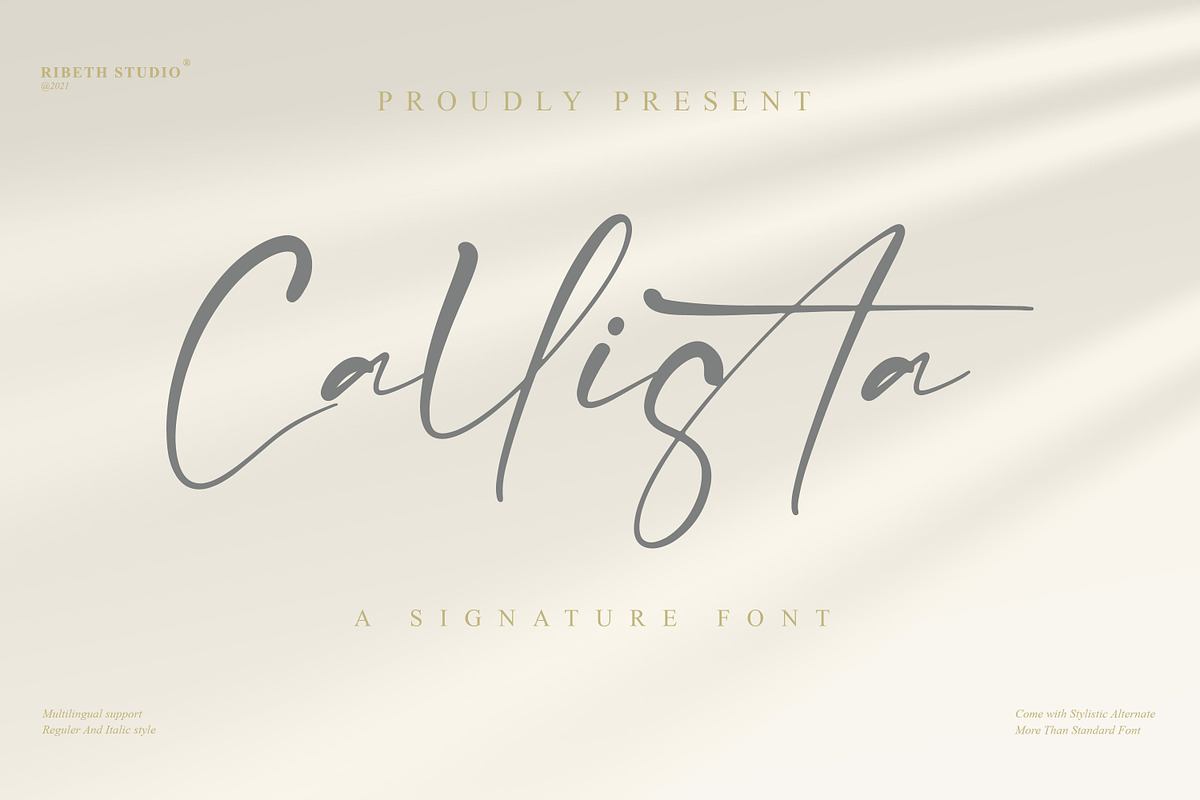
This sophisticated font is perfect for luxury brand signatures, personal logo design, wedding stationery, high-end business cards, elegant letterheads, boutique branding, premium packaging design, and exclusive event invitations. Its graceful character makes it ideal for projects requiring authentic signature elegance and personalized sophistication.
Callista Signature Font is exciting because it captures the fluid beauty and personal intimacy of natural signature writing with carefully crafted letterforms that flow seamlessly together like genuine pen strokes. The font features realistic pressure variations, organic connections, and authentic flourishes that mirror the confident elegance of practiced signature writing. Its sophisticated personality conveys trust, exclusivity, and personal attention to detail.
The Callista Signature Font family typically includes regular and ornate variations, along with stylistic alternates, decorative swashes, and connecting ligatures that enhance the natural signature flow. Many versions feature extended character sets, special flourishes, and authentic signature elements that add personalized touches.
Whether you're developing luxury personal brands, exclusive client communications, or premium signature applications, Callista Signature Font Free Download provides authentic signature sophistication with professional reliability. This typeface transforms ordinary text into distinguished personal statements that resonate with discerning clients who appreciate genuine elegance and individual attention. Its distinctive character adds immediate prestige and personal touch to any communication while maintaining excellent legibility, making it an essential resource for professionals who require Callista Signature Font Free Download that conveys authenticity, sophistication, and exclusive personal service.